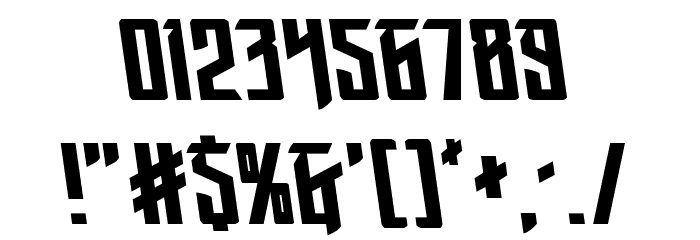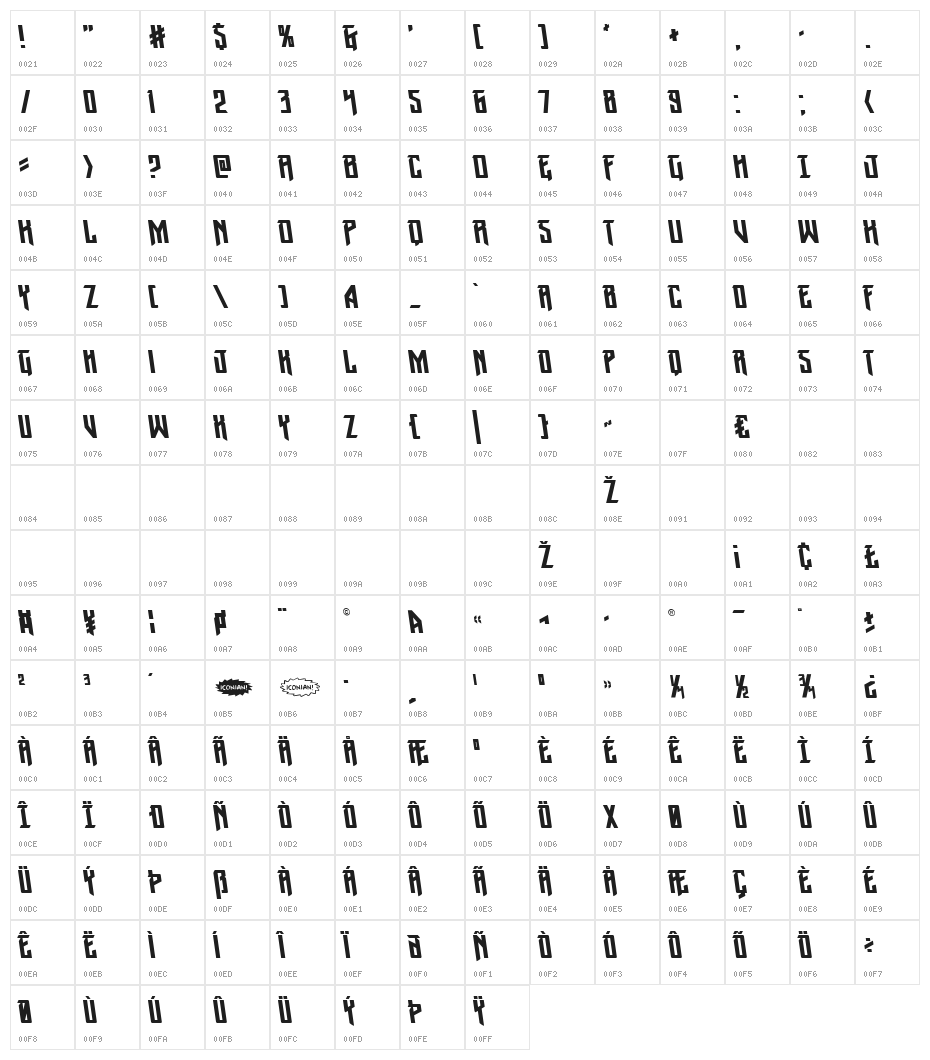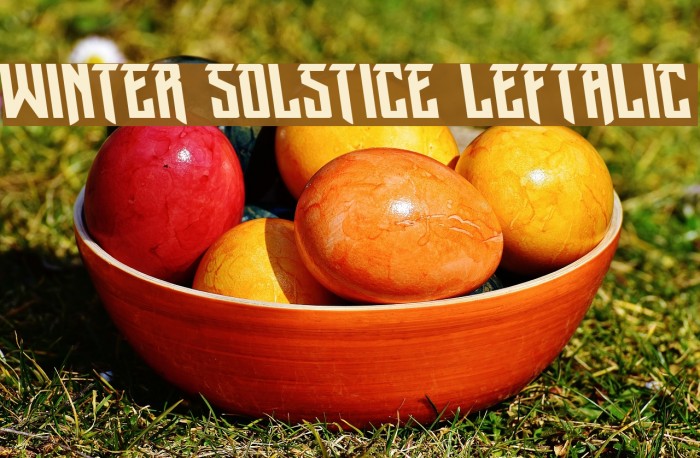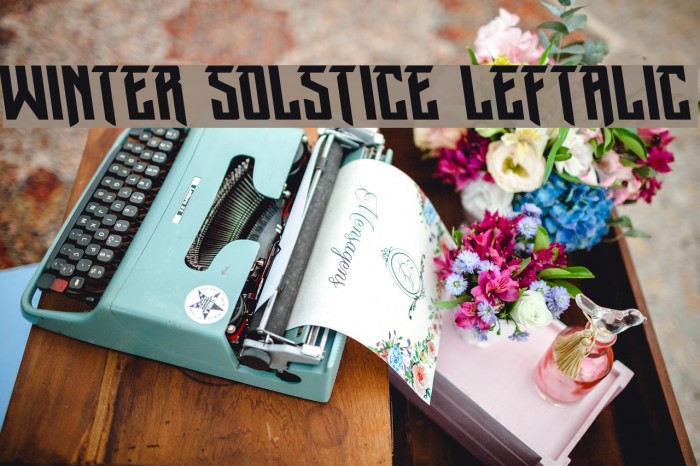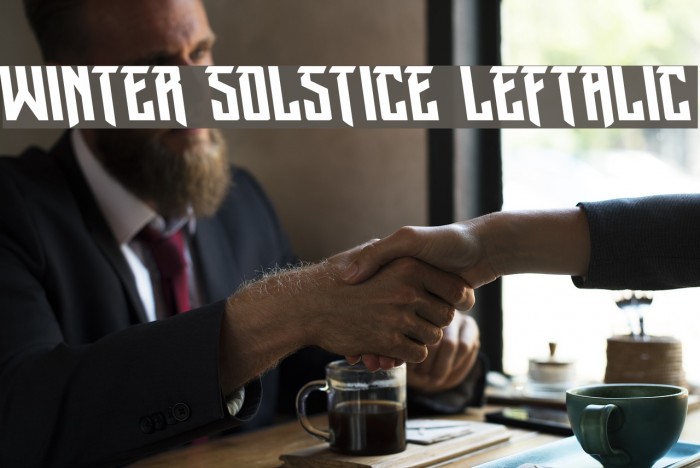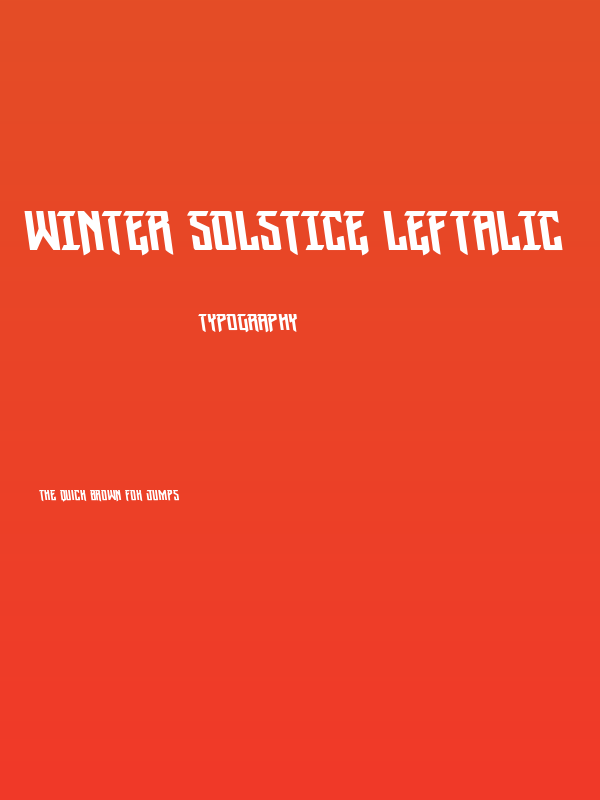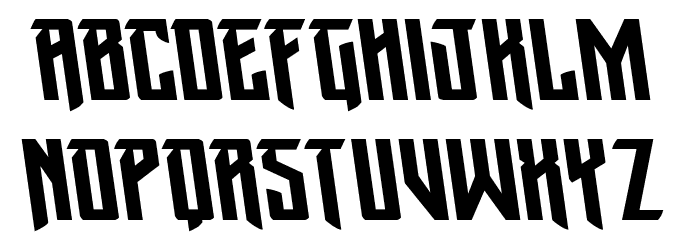
Winter Solstice Leftalic Font
Winter Solstice Leftalic Description
This font features a bold and angular design with a distinct leftward slant, giving it a dynamic and edgy appearance. The characters are sharply defined with thick strokes, creating a strong visual impact. The uppercase and lowercase letters maintain a consistent style, with geometric shapes and pointed edges. Numbers and special characters follow the same angular theme, ensuring uniformity across all glyphs. The overall design is modern and striking, suitable for projects that require a bold statement.